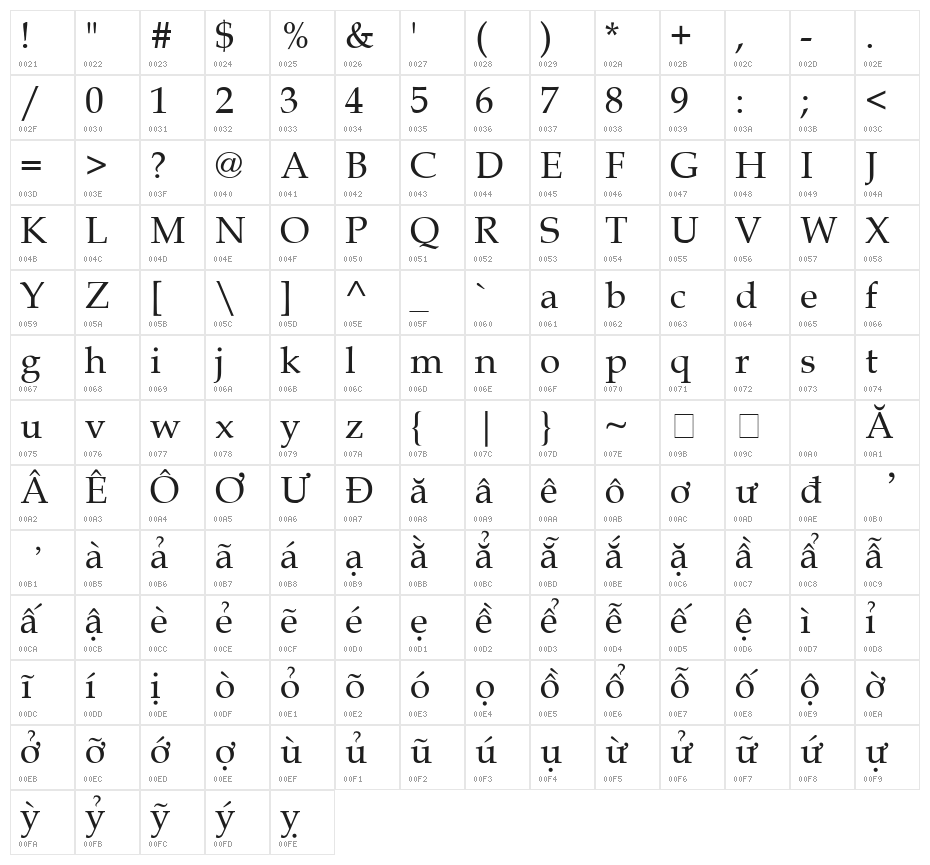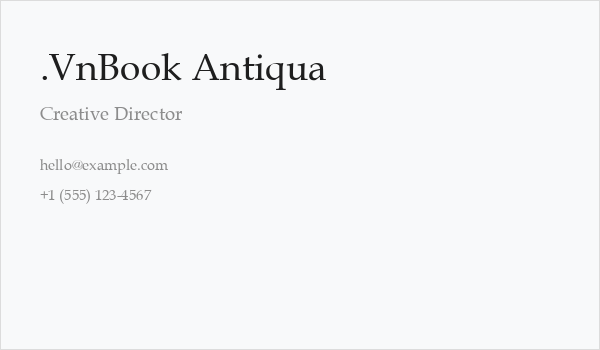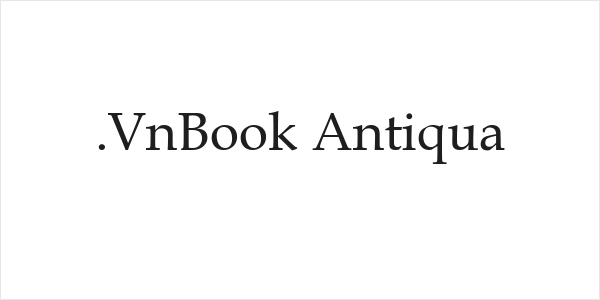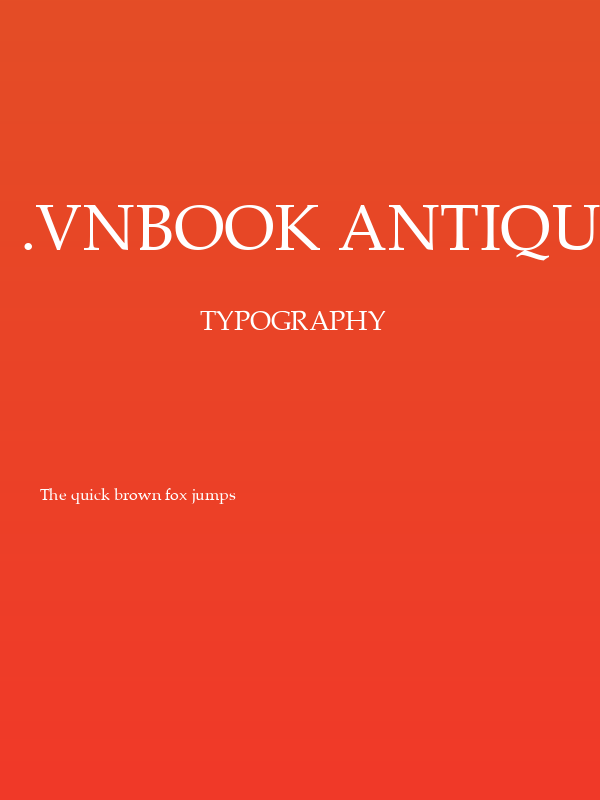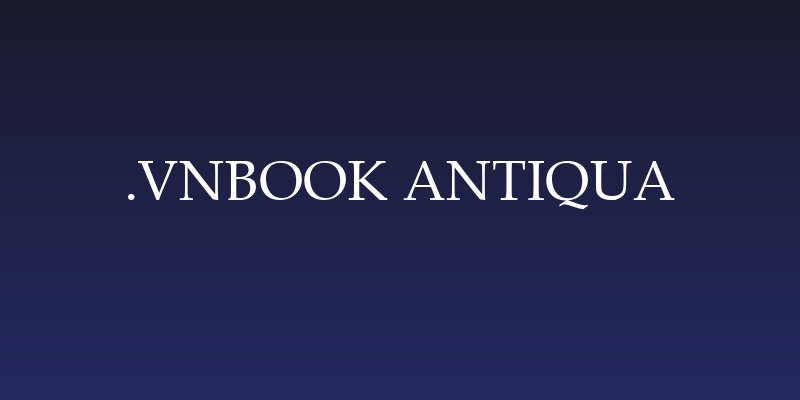
.VnBook Antiqua Font
.VnBook Antiqua Description
This font features a classic serif design with elegant and refined strokes. The uppercase letters are well-proportioned, with a slight contrast between thick and thin lines, giving it a sophisticated appearance. The lowercase letters maintain a traditional style, with smooth curves and a consistent baseline. The numerals are clear and legible, making them suitable for various applications. Special characters are included, providing versatility for different types of text. Overall, this font exudes a timeless and professional look, ideal for formal documents and publications.
| Use Case | Body text, Headlines, Formal documents |
| Proposed Projects | Ideal for book typesetting, formal documents, academic papers, and elegant invitations. |